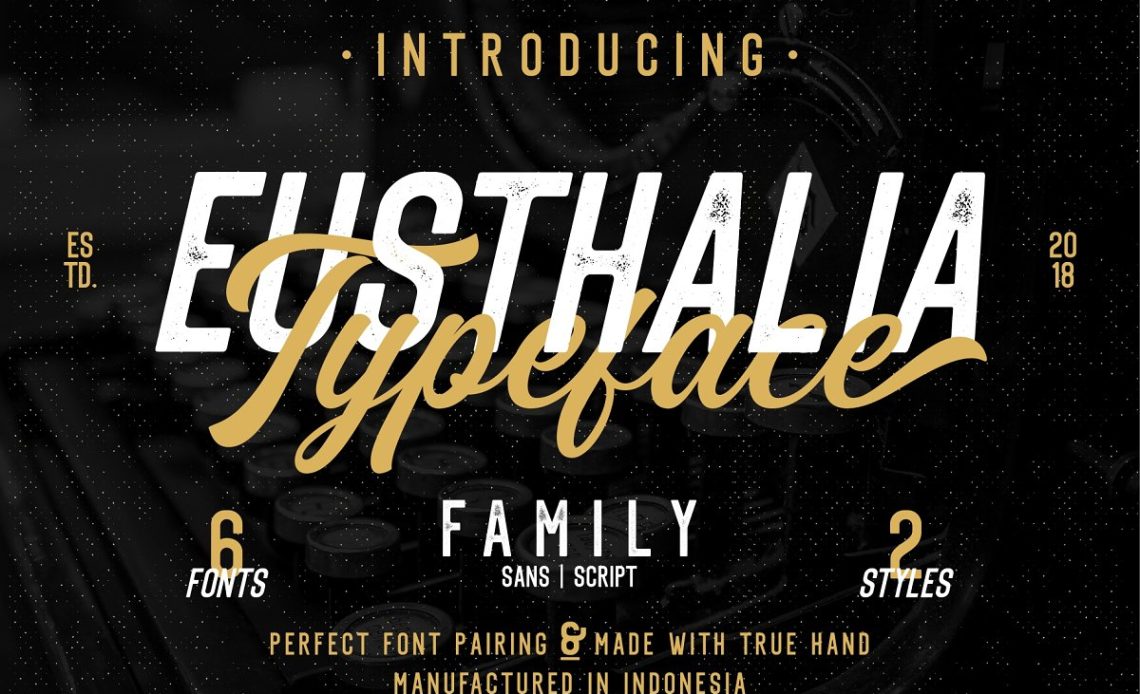
Introducing the stunning Eusthalia Typeface Family, a collection of 6 captivating fonts designed by the talented Yudha Ageng. This script font family is perfect for those looking to add a touch of vintage charm to their designs.
With two styles to choose from - Clean and Stamped - Eusthalia Typeface offers endless possibilities. The Clean style exudes elegance and sophistication, while the Stamped style adds a rustic and worn feel. Whether you're working on a logo design, branding project, digital lettering art, or even a T-shirt design, these fonts will elevate your work to new heights.
What sets Eusthalia Typeface apart is its versatility. It effortlessly combines modern aesthetics with vintage appeal, making it suitable for a wide range of design needs. From posters to magazines, signs to advertising, this font family has got you covered.
Featuring upper and lowercase standard characters, punctuation, and numerals, Eusthalia Typeface also includes OpenType features such as standard ligatures, contextual alternates, and stylistic sets. These additional design elements allow you to create unique and eye-catching typography effortlessly.
The Eusthalia Typeface Family includes Eusthalia Sans, Eusthalia Sans Stamped, Eusthalia Sans Slant, Eusthalia Sans Slant Stamped, Eusthalia Script Clean, and Eusthalia Script Stamped. Each font style offers its own unique charm and can be purchased individually or as a complete set.